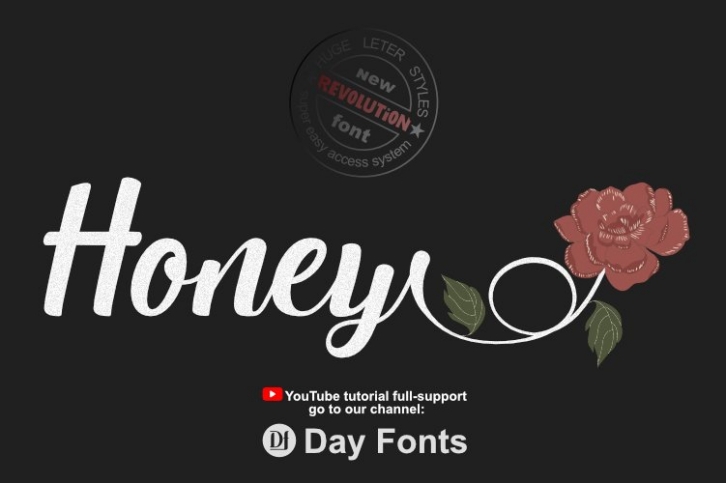
Honey is a trendy and unique font with an authentic style. It was designed by Prast Art and it's a great choice for creative people who need such a font. It was released on June 15, 2021 and the file size is 16.54 MB. Honey will add an organic vibe to any design idea!